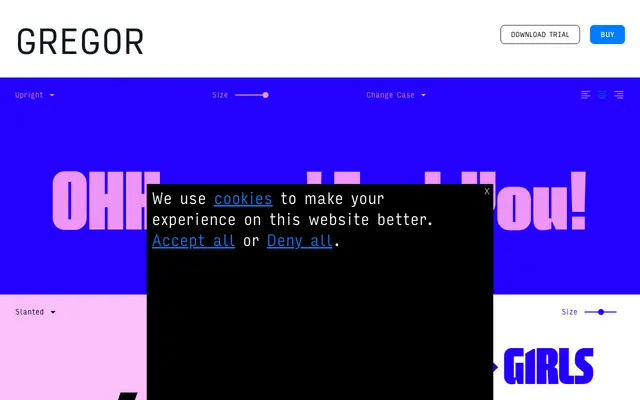
Gregor
A single-weight display sans from Bastarda with an upright and slanted cut, built for bold headlines and confrontational graphic work.
A display sans offered in upright and slanted styles, with specimen copy that leans into attitude and irreverence. The character set covers extended Latin, supporting a broad range of Western and Central European languages. Suited to editorial titles, poster work and identity projects that want weight without historical reference.
Gregor presents as a display-weight sans with a bold, confrontational character suited to headlines and branding. The upright and slanted cuts, along with the expressive specimen copy, place it firmly in the display category rather than a workhorse grotesque.